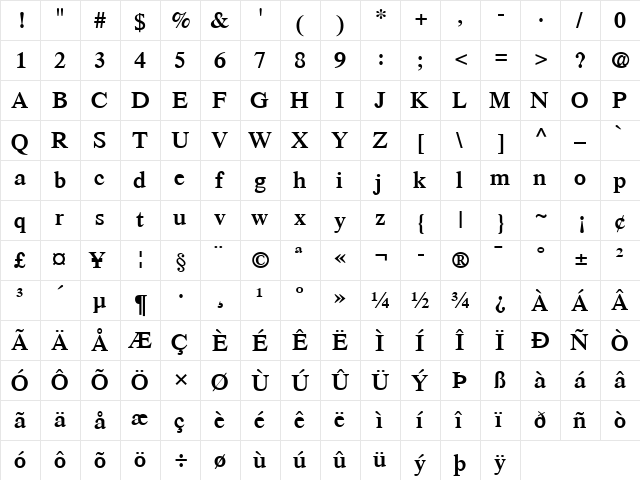
Times LT Semibold Regular Font Preview
Times LT Semibold Regular
Times LT Semibold Regular Font Details
Design Context for Times LT Semibold Typeface
Times LT Semibold offers clean, dependable letterforms without strong stylistic allegiance, making it a practical choice for designers who need flexibility. The heavy weight commands attention and anchors typographic hierarchies.